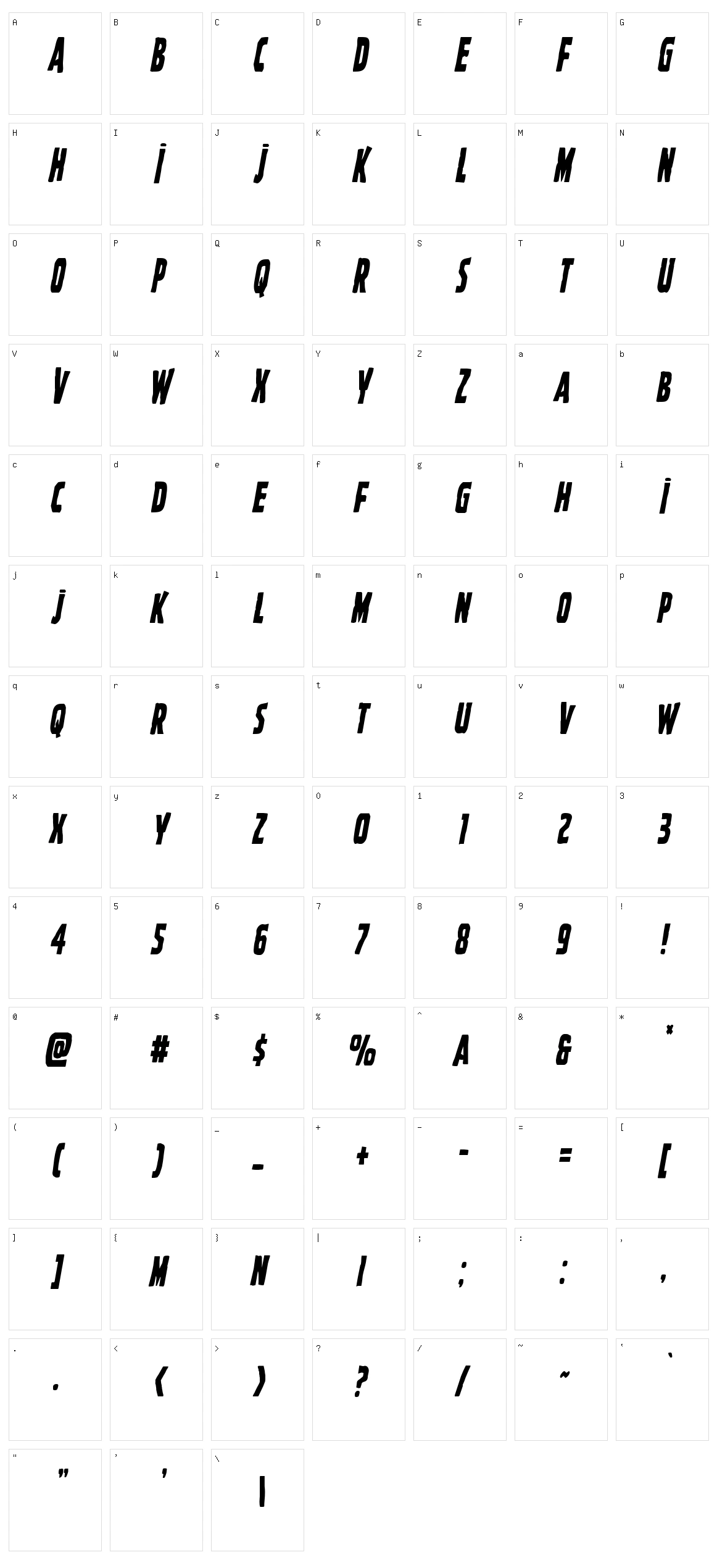
2016 Iconian Fonts - Daniel Zadorozny
This font comes with the following 22 versions: Regular, Italic, Leftalic, Semi-Italic, Condensed, Condensed Italic, Expanded, Expanded Italic, Shadow, Shadow Italic, Rotated, Rotated 2, Shift, Shift Italic, Shitf Rotalic, Staggered, Mangled Italic, Punch, Punch Italic and Caps Shift.